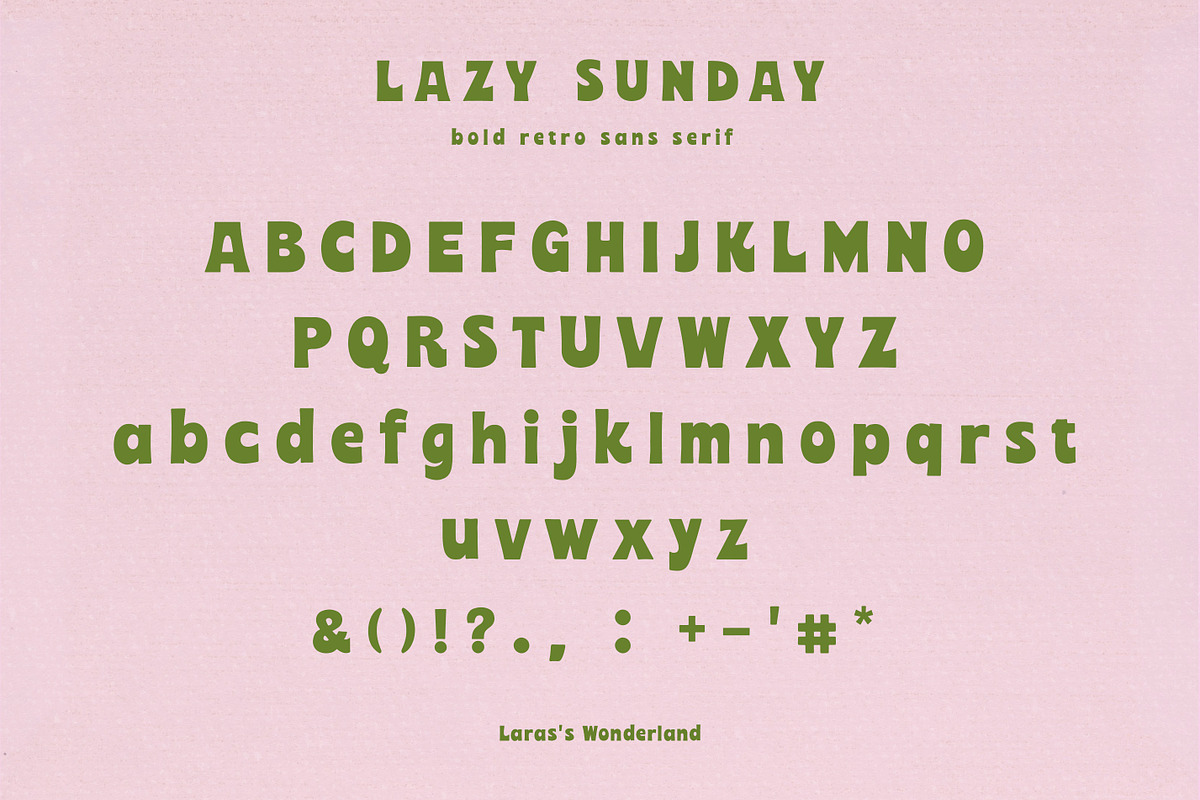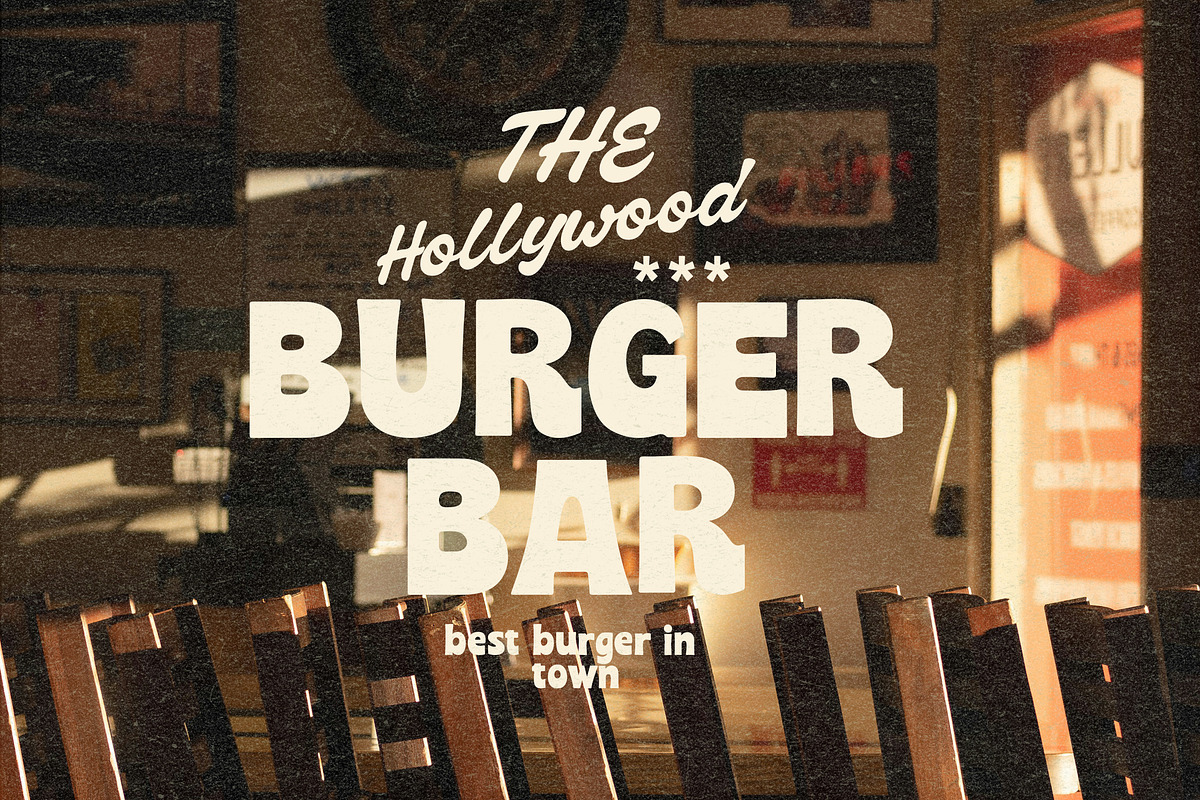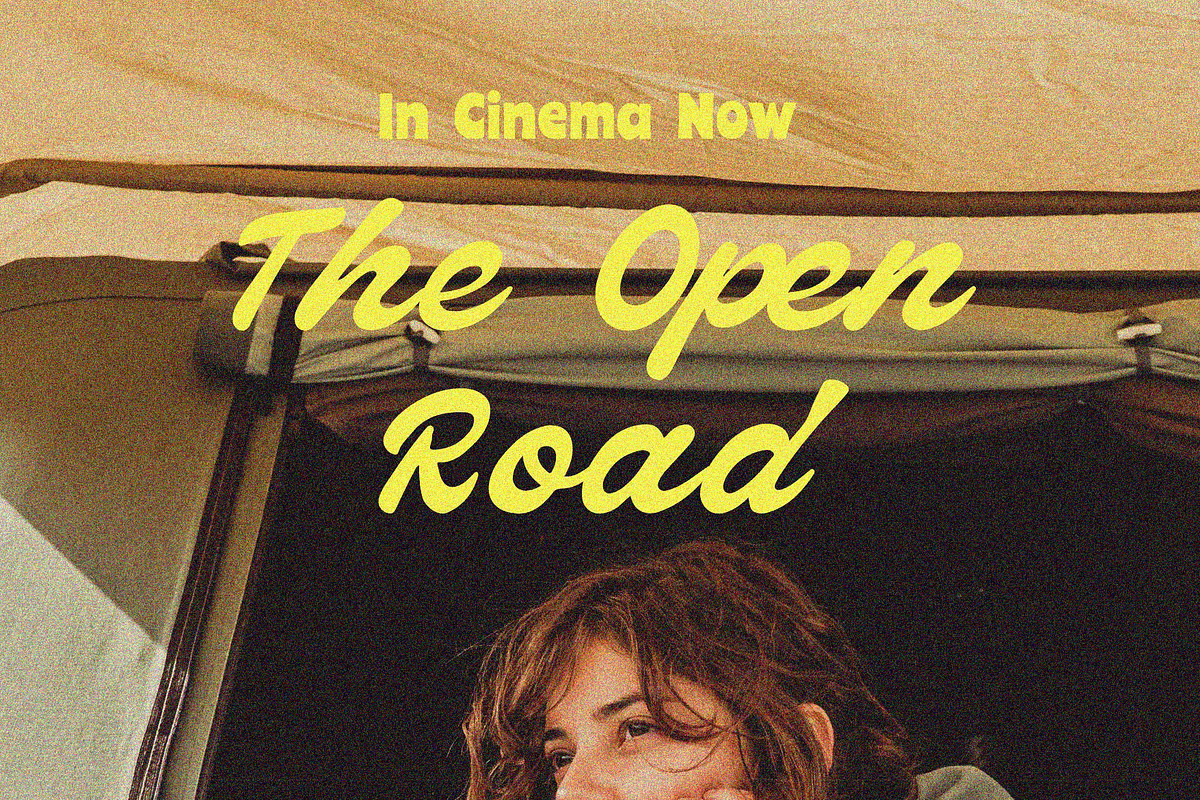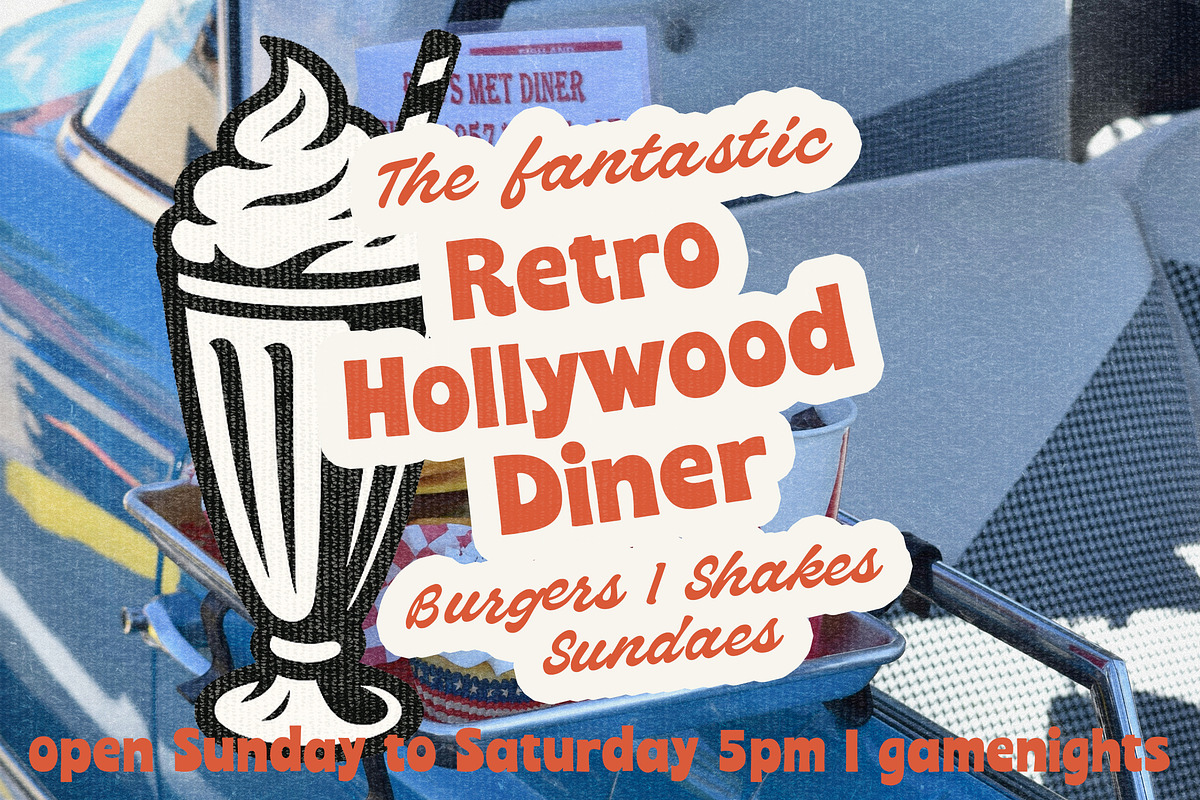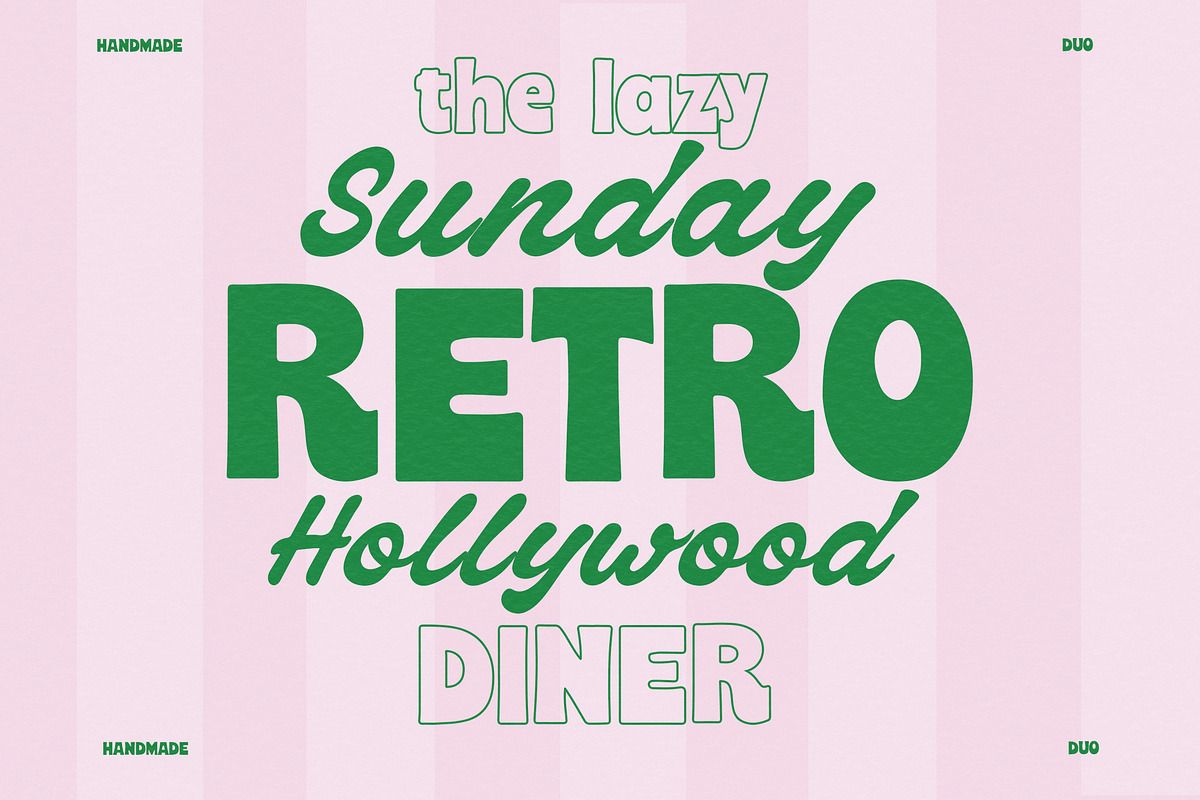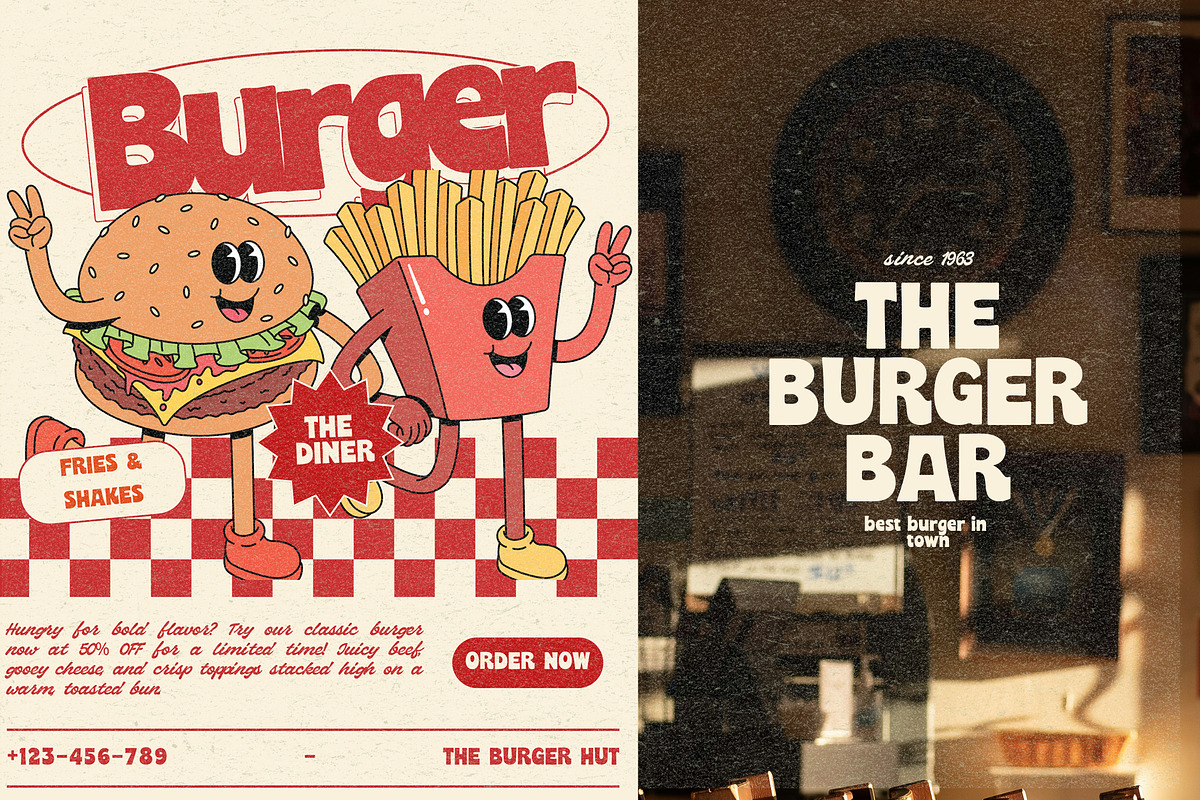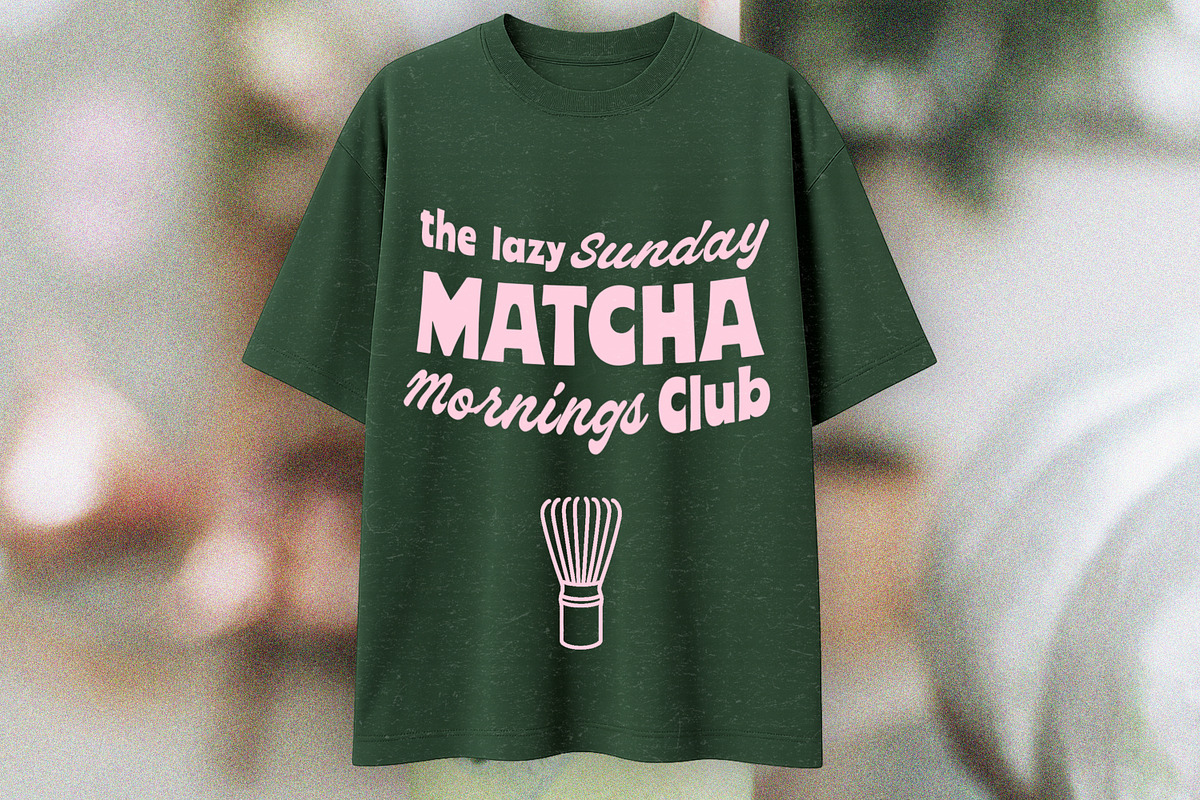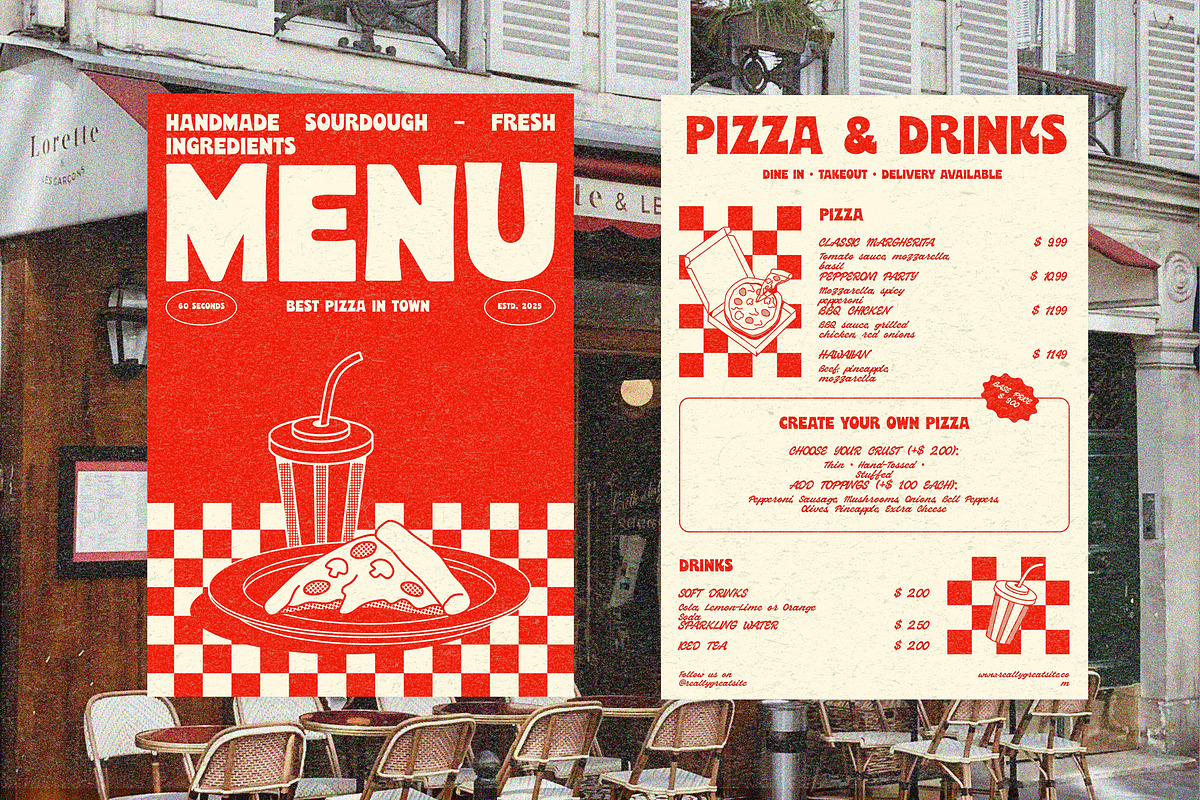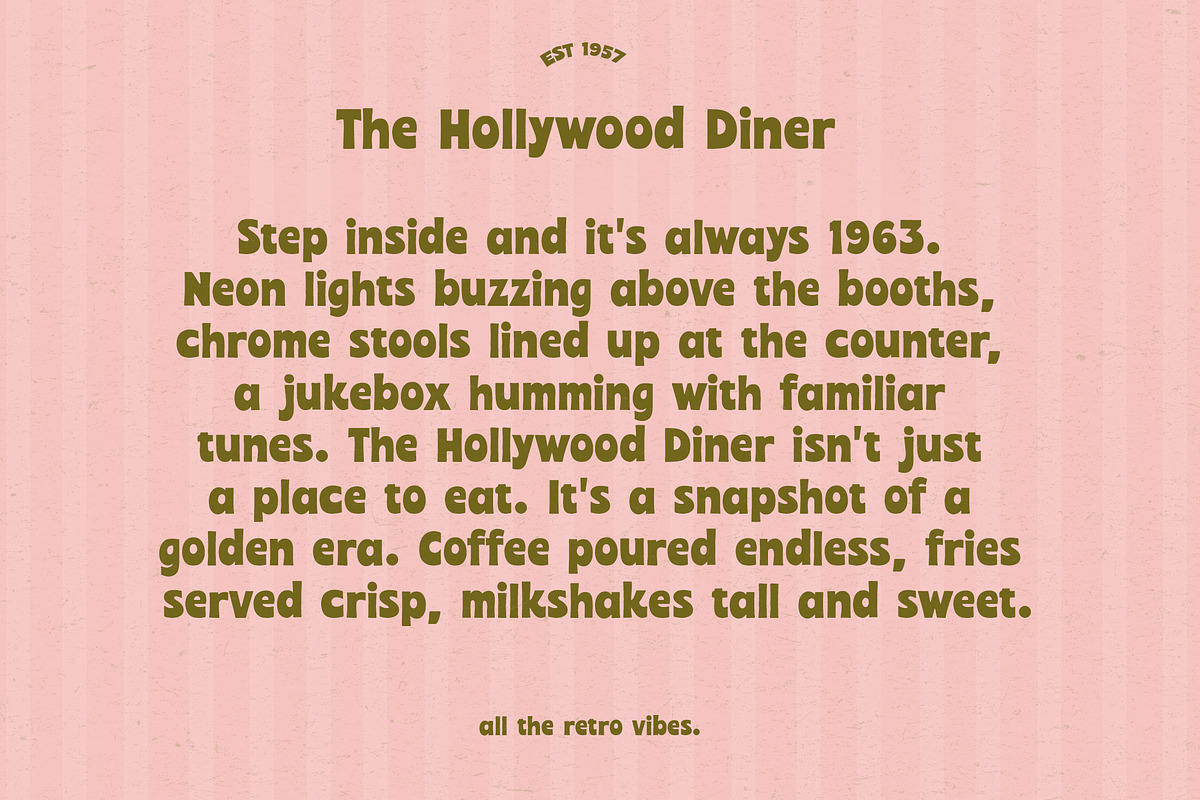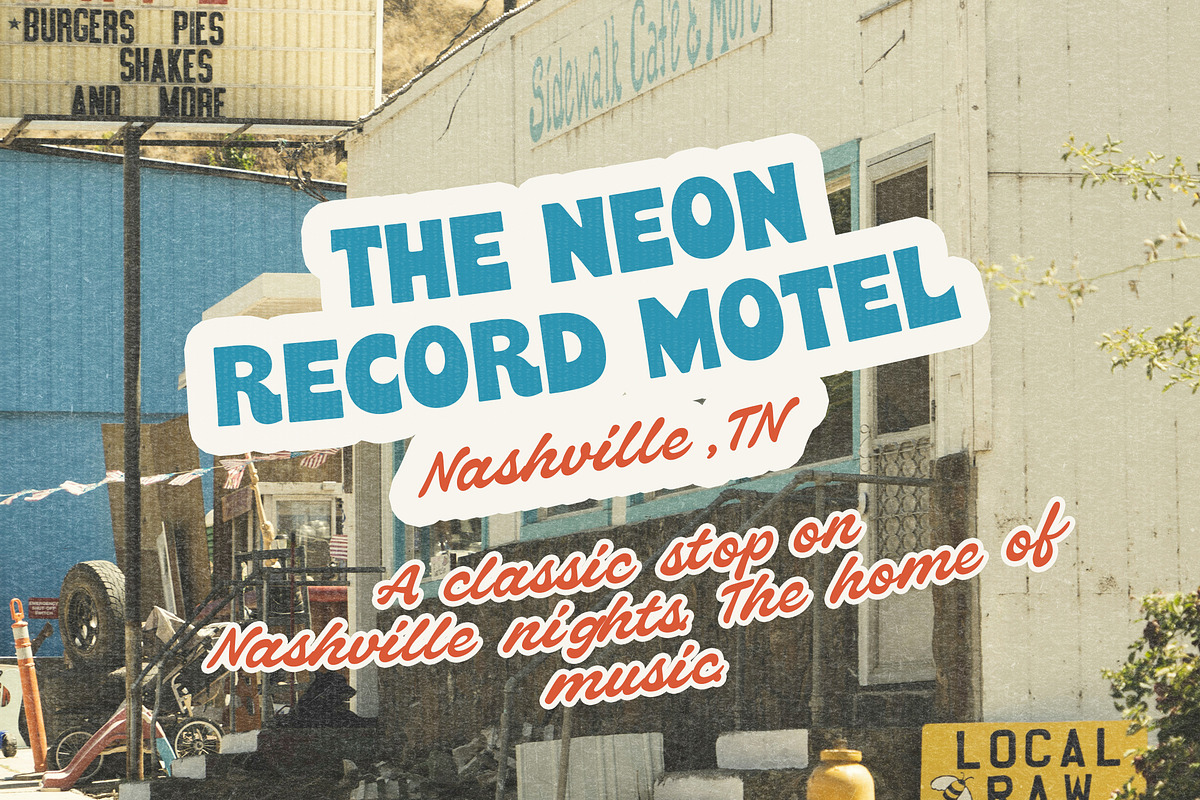
Vintage Script & Sans Bold Font Duo
Meet the Lazy Sunday & Hollywood Diner Font Trio - a bold 60s-inspired sans & outline version paired with Hollywood Diner, a vintage script straight out of retro menus. Think bold 60s headlines, neon diner scripts, and that easy Sunday at the neighbourhood café vibe.
These complementary vintage fonts are crafted by hand and come with that handmade vibe that creates authentic retro nostalgia. Crafted for posters, menus, coffee brands, restaurant branding, poster and printable designs, and anywhere you want that 60'ies Hollywood vibe.